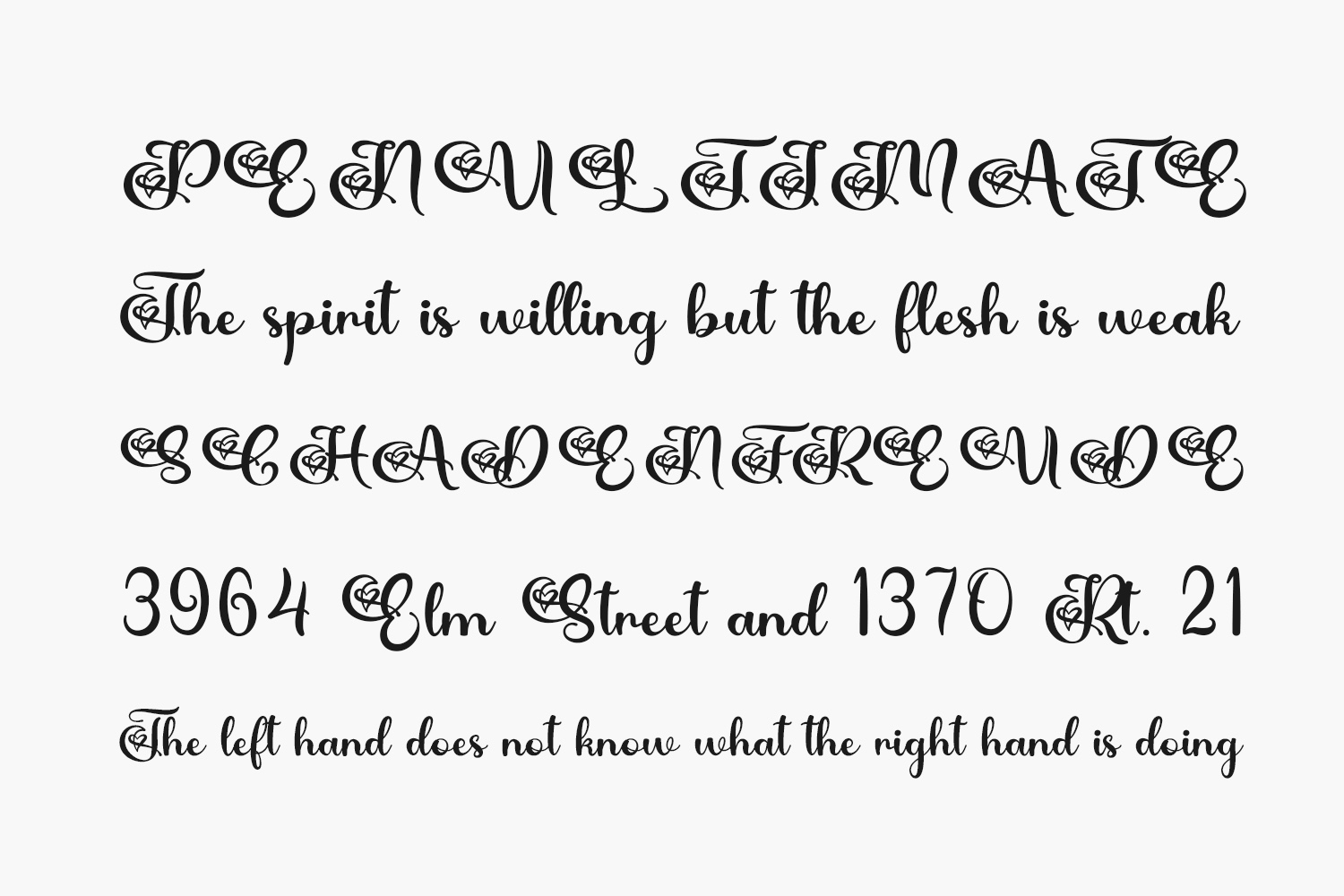
Romantic Austine Free Font is a lovely and timeless handwritten font. It is the best choice for creating eye catching logos, branding, and quotes. Romantic Austine Free Font was designed by Letter Art Studio and is free for personal use only. Please purchase the full version for commercial use.
Designed by Letter Art Studio